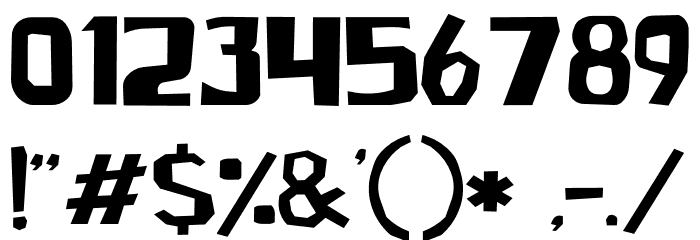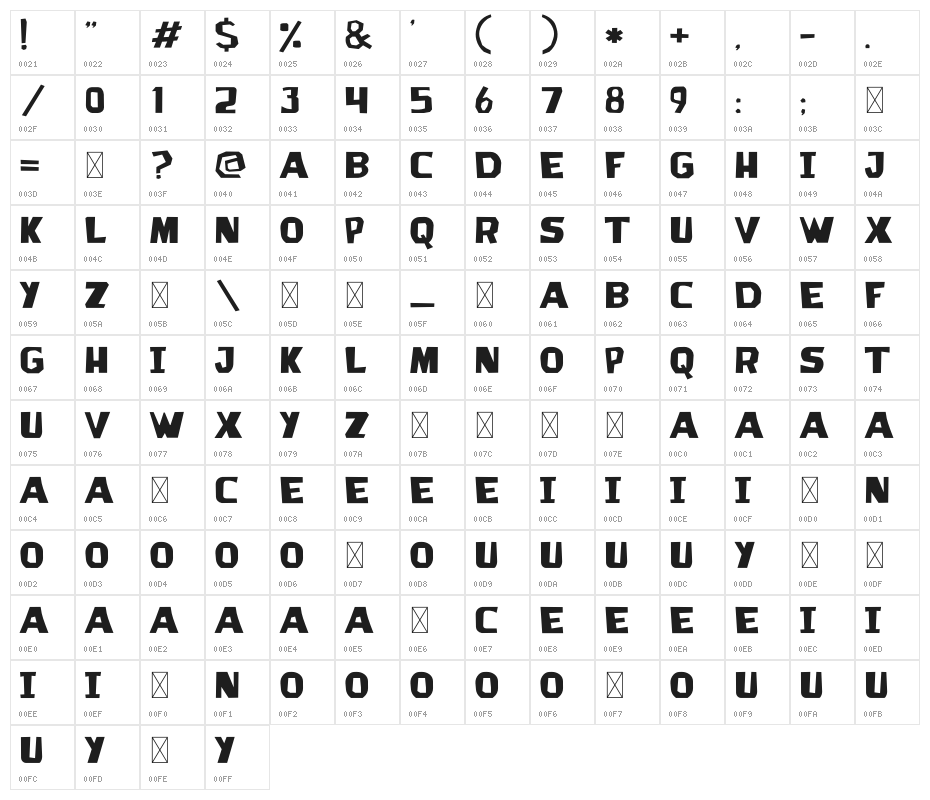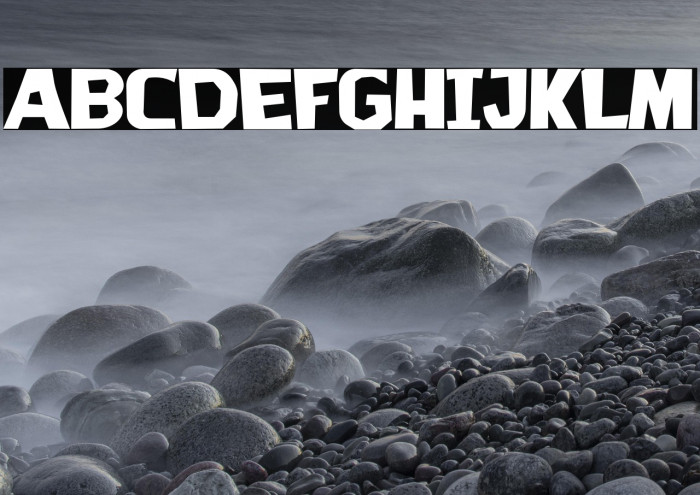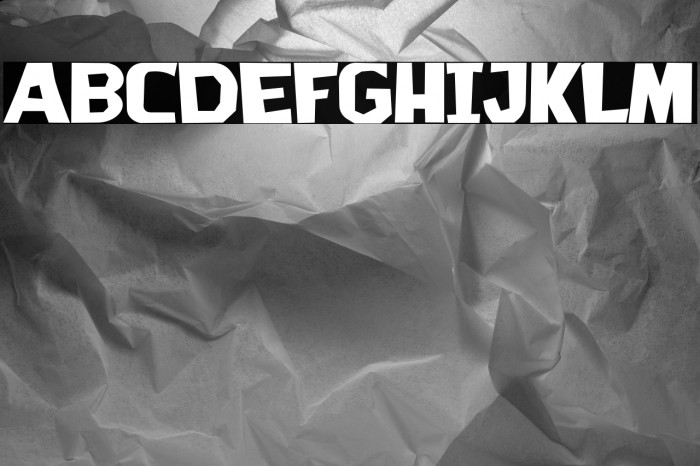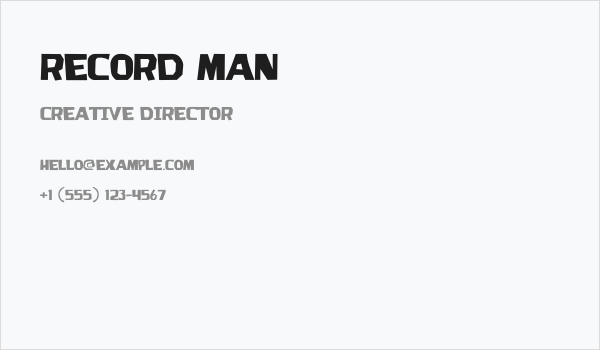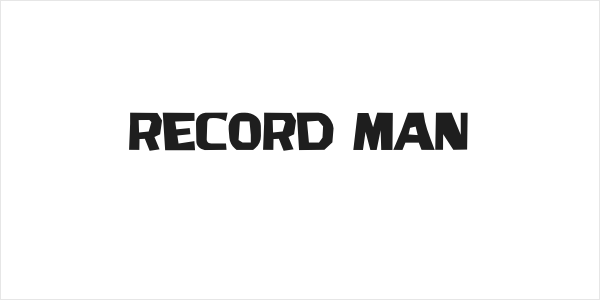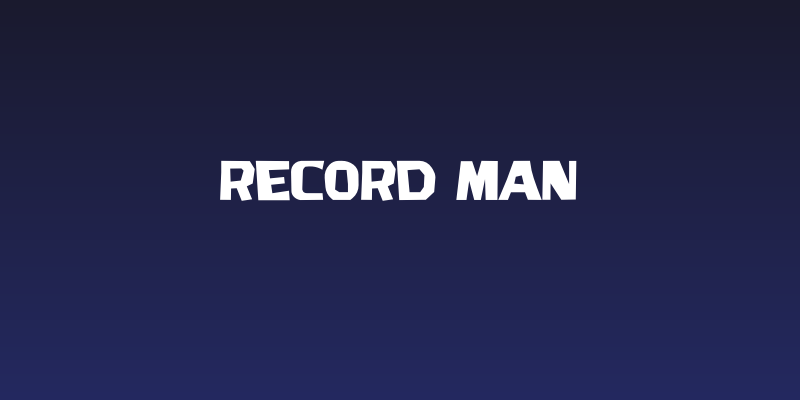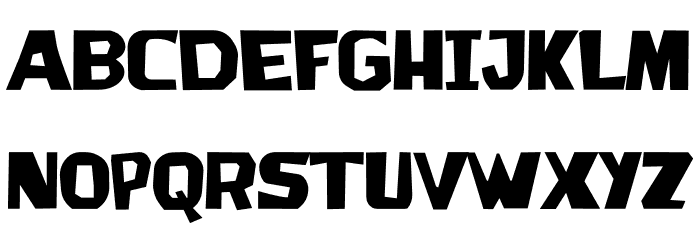
Record Man Font
Record Man Description
This font exhibits a bold and dynamic style with a strong presence. The characters are designed with a slightly irregular, hand-crafted appearance, giving them a unique and playful look. The uppercase and lowercase letters maintain a consistent weight, contributing to a cohesive visual impact. The numbers and special characters follow the same design principles, ensuring uniformity across all glyphs. The font's boldness and distinctive character shapes make it ideal for attention-grabbing designs. Its slightly condensed form allows for efficient use of space without sacrificing readability.
| Proposed Projects | Ideal for posters, album covers, branding, and any project requiring a bold, eye-catching typeface. |